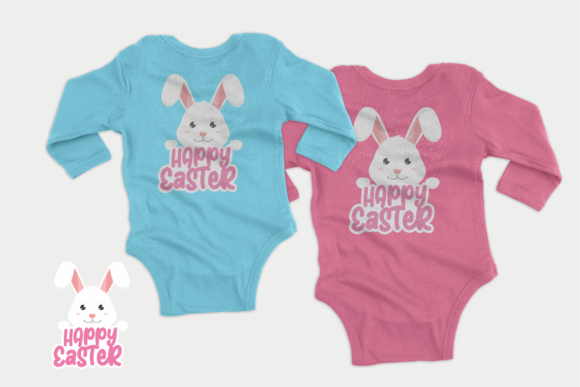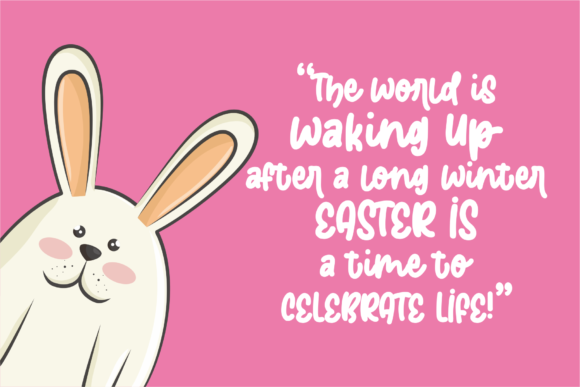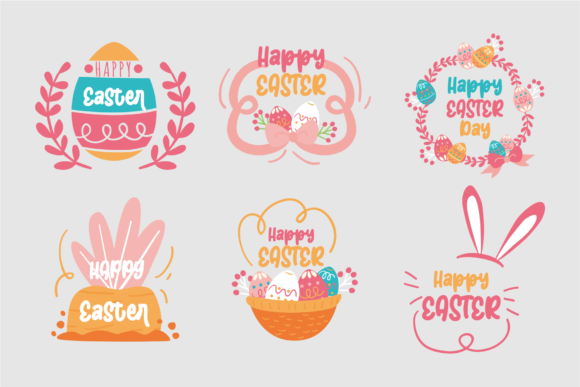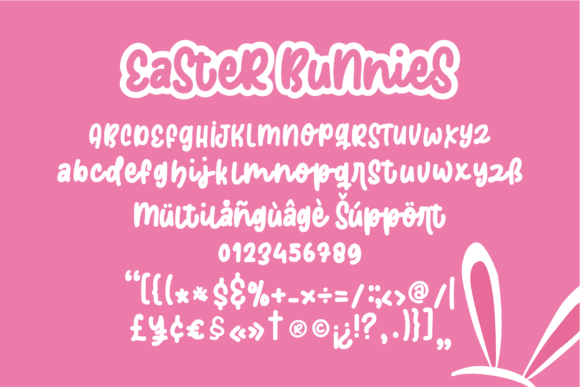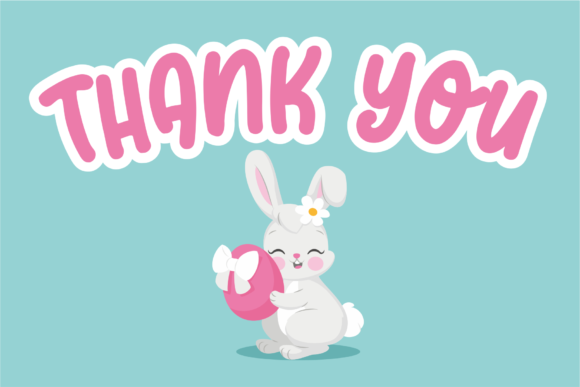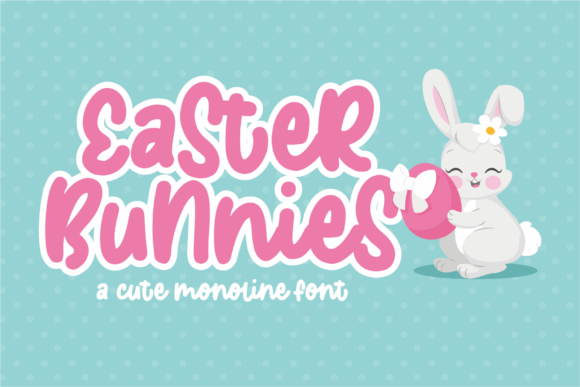
Easter Bunnies Font: The Perfect Addition to Your Creative Projects
Are you looking for a font that can add a touch of whimsy and playfulness to your creative projects? Look no further than the Easter Bunnies Font! This bold display font is carefully handcrafted to become a true favorite among designers and crafters. In this article, we’ll take a closer look at the Easter Bunnies Font and explore its features, benefits, and uses.
What is Easter Bunnies Font?
Easter Bunnies Font is a bold display font designed to make a statement. Its unique and playful design makes it perfect for a variety of creative projects, from Instagram posts to DIY crafts. The font is carefully handcrafted to ensure that every letter and symbol is meticulously designed to create a cohesive and visually appealing look.
Features of Easter Bunnies Font
The Easter Bunnies Font comes with a range of features that make it a versatile and practical choice for designers and crafters. Some of its key features include:
- Bold and playful design: The Easter Bunnies Font is designed to make a statement. Its bold and playful design makes it perfect for creating eye-catching headlines, titles, and graphics.
- Handcrafted with love: The font is carefully handcrafted to ensure that every letter and symbol is meticulously designed to create a cohesive and visually appealing look.
- Multipurpose: The Easter Bunnies Font is perfect for a variety of creative projects, from Instagram posts to DIY crafts, and from calligraphy scripts to digital art.
Benefits of Using Easter Bunnies Font
The Easter Bunnies Font offers a range of benefits to designers and crafters. Some of its key benefits include:
- Adds a touch of whimsy and playfulness: The Easter Bunnies Font adds a touch of whimsy and playfulness to any creative project, making it perfect for designers and crafters who want to create unique and eye-catching designs.
- Perfect for Easter-themed projects: The Easter Bunnies Font is perfect for Easter-themed projects, such as Easter cards, Easter decorations, and Easter-themed social media posts.
- Versatile: The Easter Bunnies Font is versatile and can be used for a variety of creative projects, from digital art to DIY crafts.
- High-quality design: The font is designed with high-quality and attention to detail, making it perfect for professional designers and crafters.
Uses of Easter Bunnies Font
The Easter Bunnies Font is perfect for a variety of creative projects, including:
- Instagram posts: The Easter Bunnies Font is perfect for creating eye-catching Instagram posts that will grab the attention of your followers.
- DIY projects: The font is perfect for DIY projects, such as handmade cards, decorations, and other crafts.
- Calligraphy scripts: The Easter Bunnies Font is perfect for calligraphy scripts, adding a touch of elegance and sophistication to any project.
- Digital art: The font is perfect for digital art, such as illustrations, graphics, and other digital designs.
The Easter Bunnies Font is a bold display font that is perfect for designers and crafters who want to add a touch of whimsy and playfulness to their creative projects. With its handcrafted design, versatility, and ease of use, this font is sure to become a true favorite. Whether you’re looking for fonts for Instagram or calligraphy scripts for DIY projects, the Easter Bunnies Font is the perfect choice.